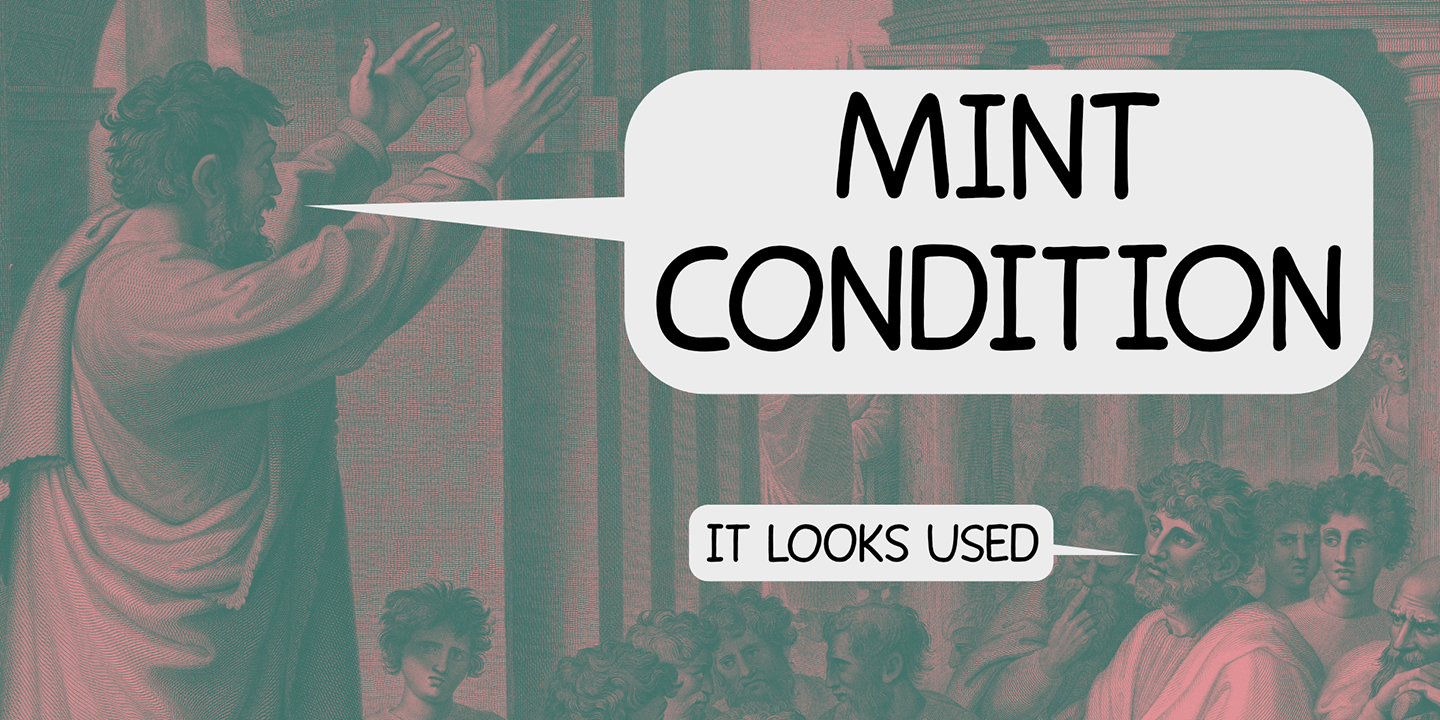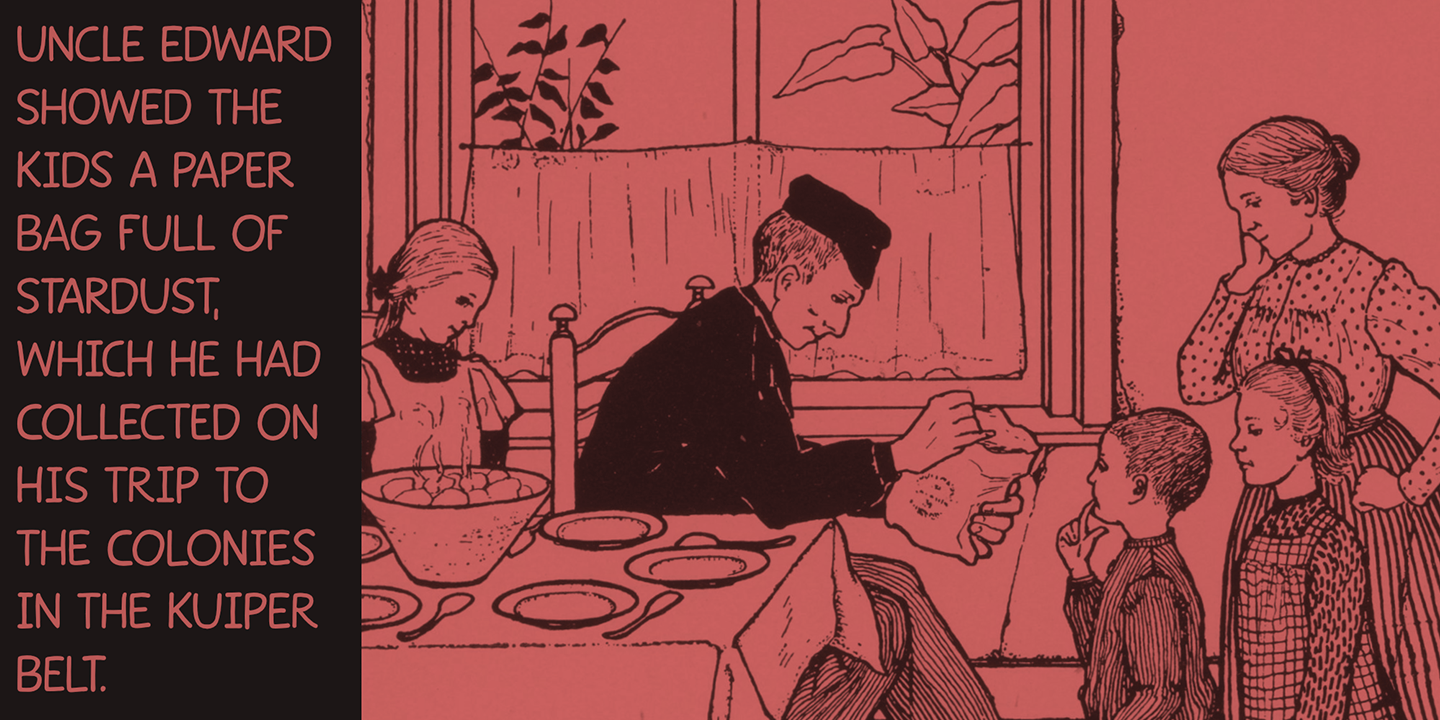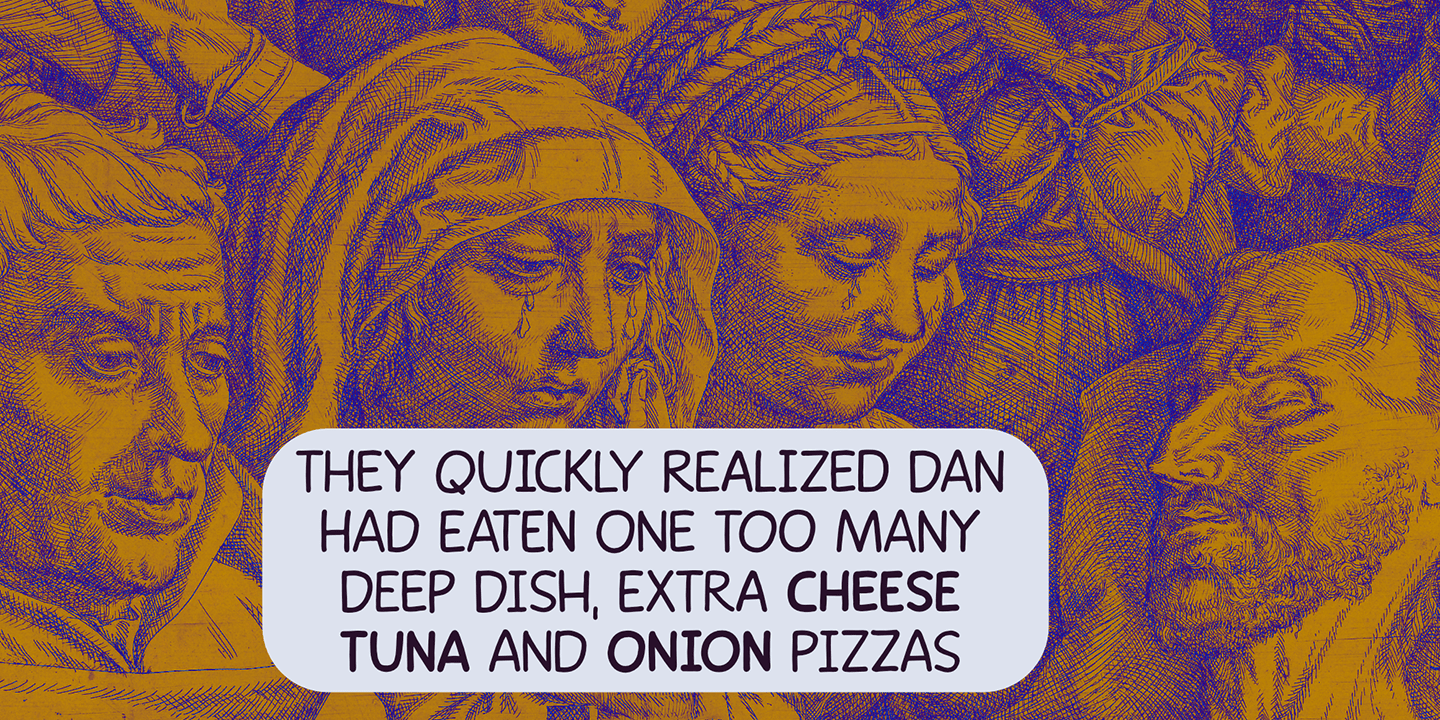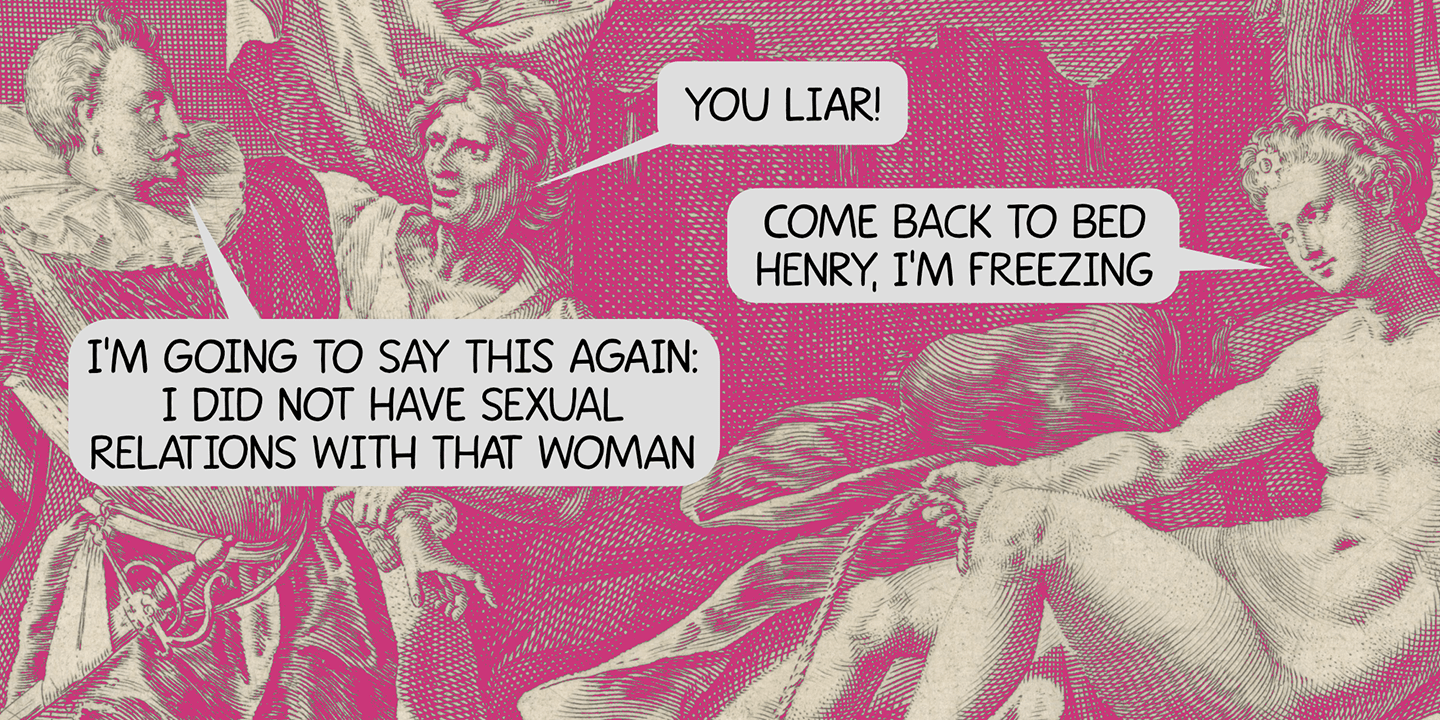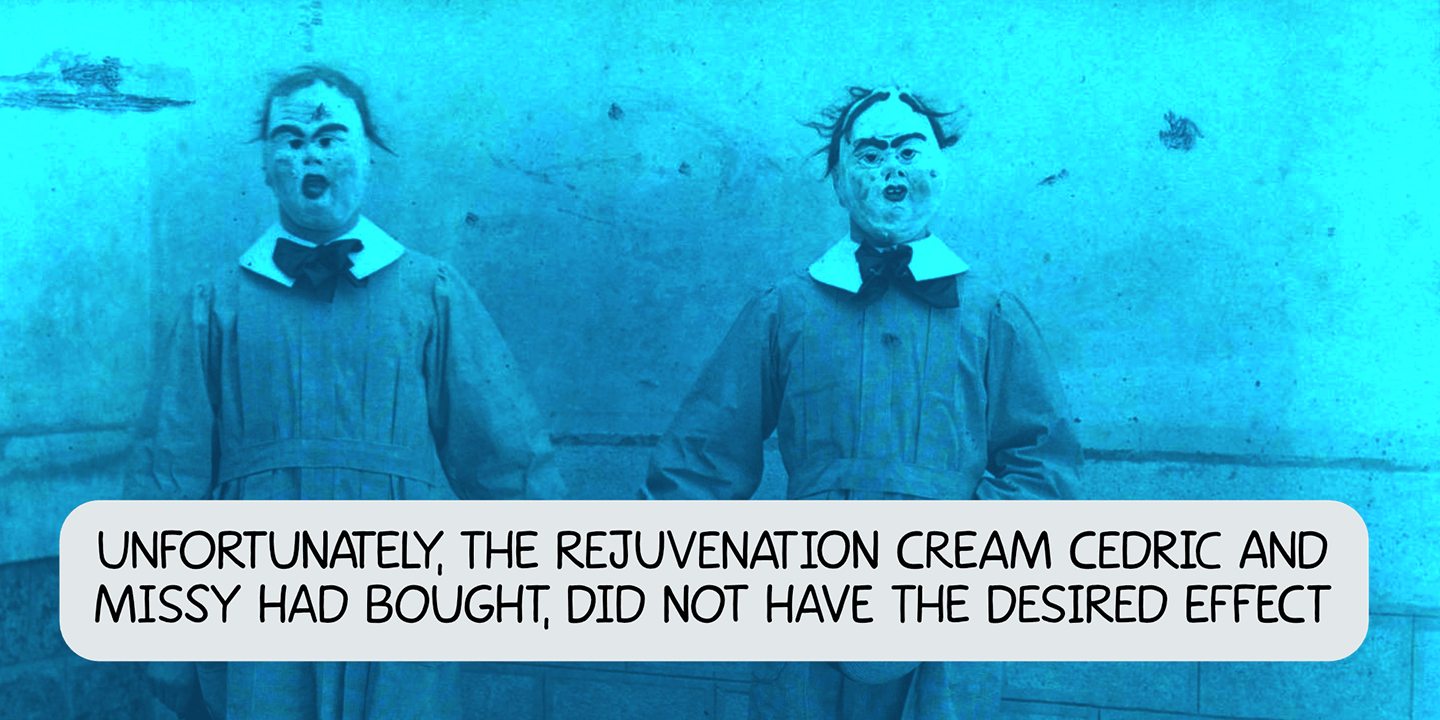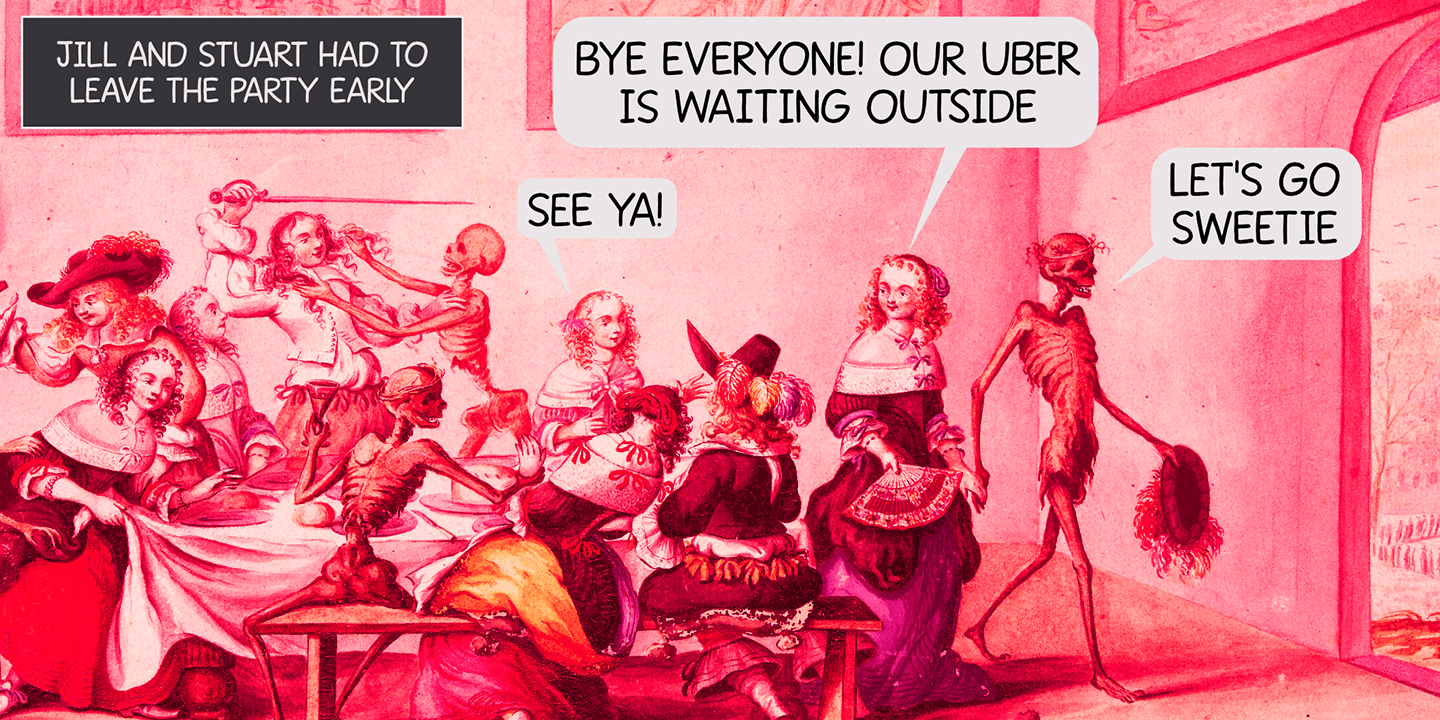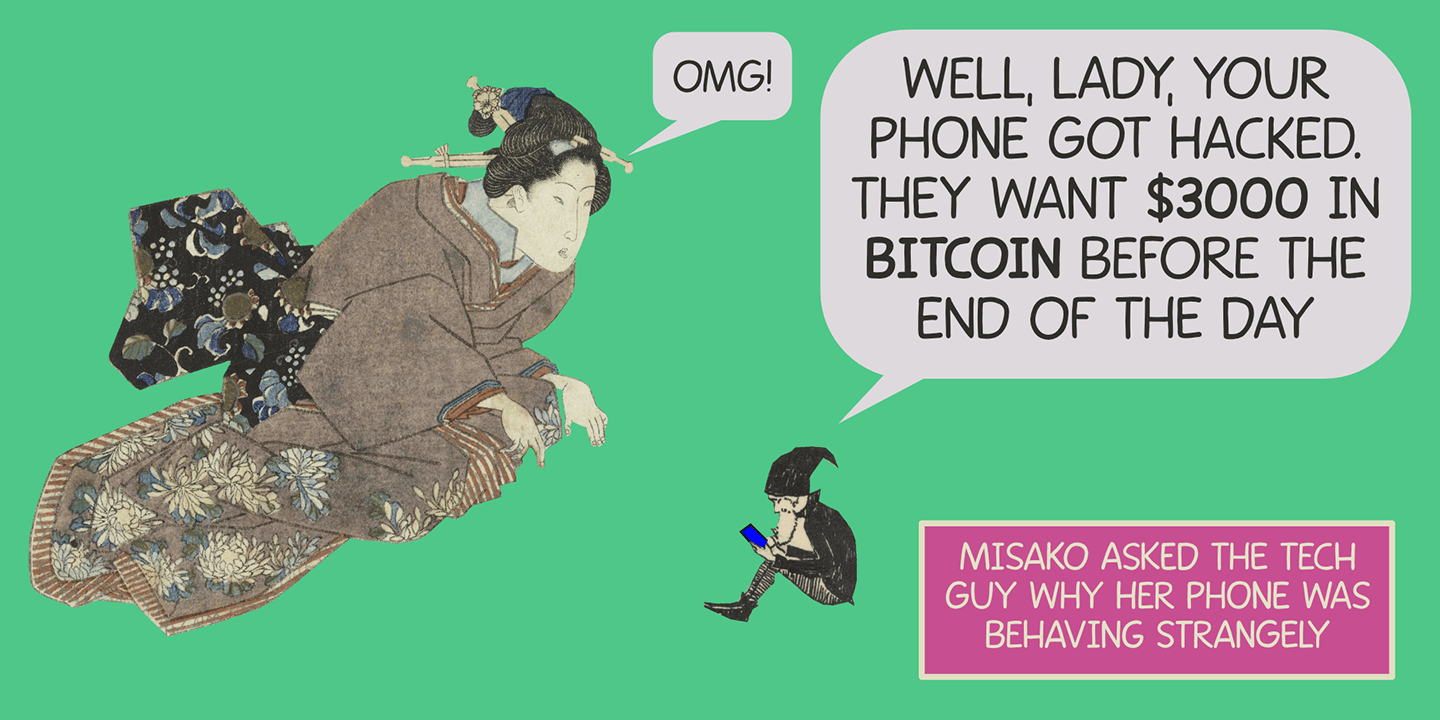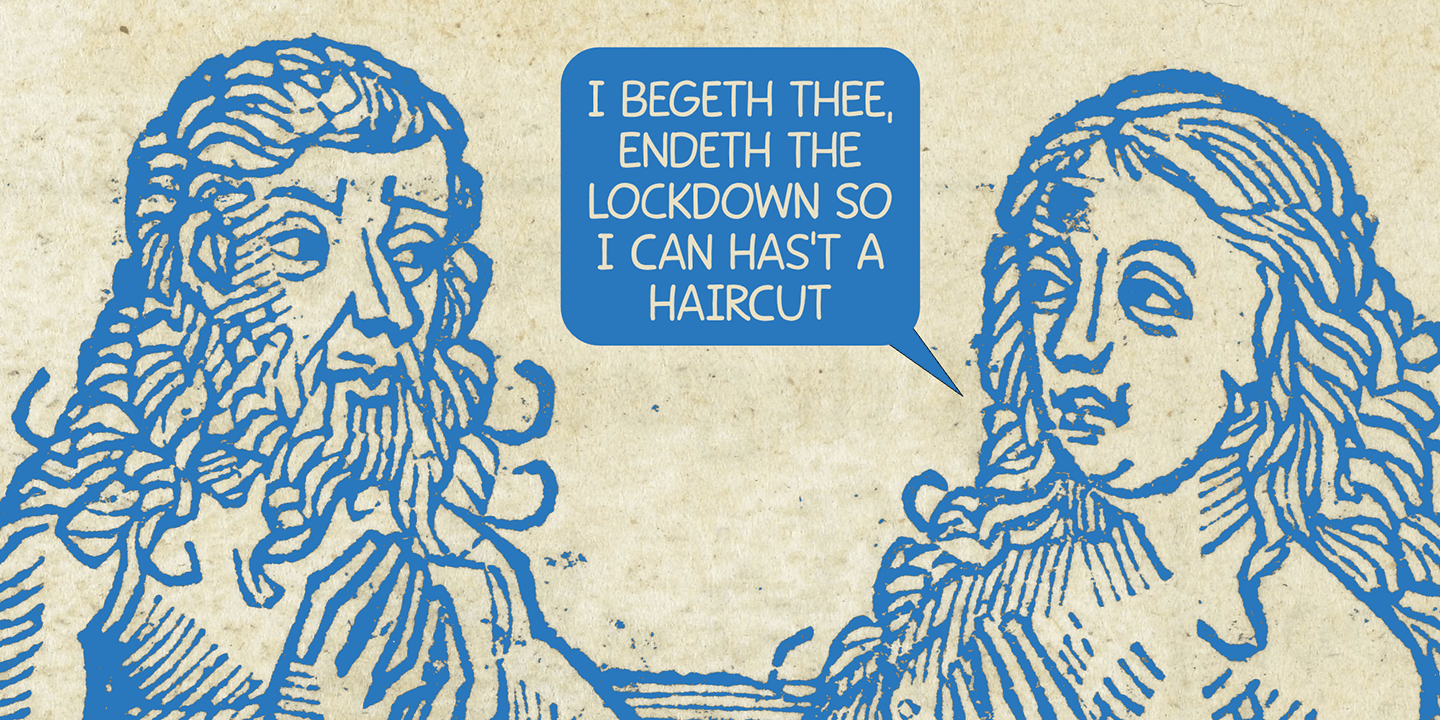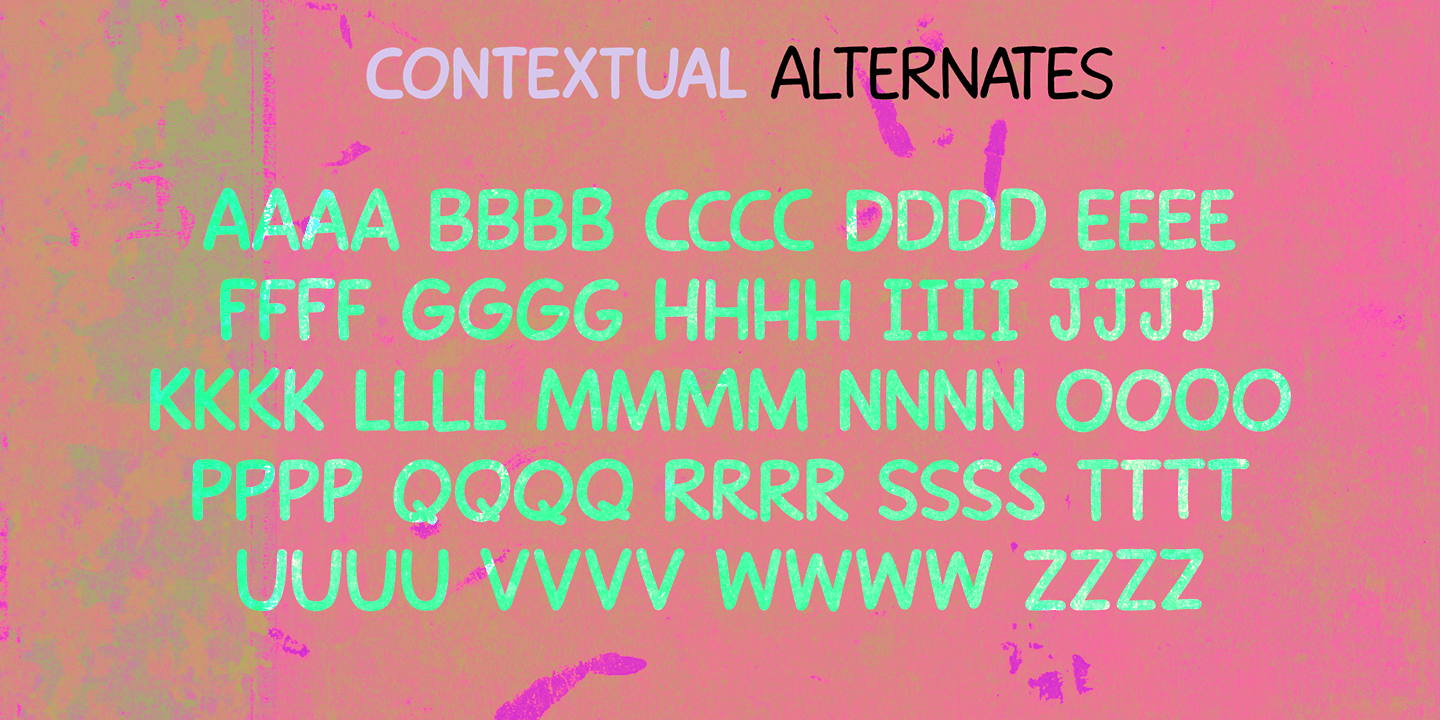
Mint Condition
My kids like to read Donald Duck magazine. They have boxes full of old editions that we bought second hand. Most of the comics are well-used, but there are some in near mint condition.
I thought it would be nice to create a font that mimics the lettering found in comics. Mint Condition is a very nice, very friendly handmade comic book font that comes with extensive language support (including Vietnamese and Cyrillic), plus two sets of alternate glyphs.